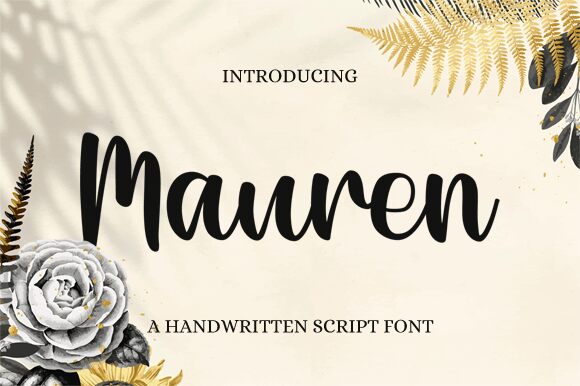
Mauren
Maurren is a captivating handwritten font designed by Nirmala Creative. Its fluid, organic strokes and natural flow create a sense of effortless elegance, making it a versatile choice for a wide range of design applications. The font's distinctive character shines through in its playful yet sophisticated aesthetic, with each letter evoking a handcrafted, personal touch.
Maurren's adaptability allows it to seamlessly transition between formal and casual settings. Its expressive quality lends itself well to branding, editorial design, and social media content, where a touch of personalization can elevate the visual experience. Whether used as a focal point or as a complementary accent, this font's captivating presence is sure to leave a lasting impression.